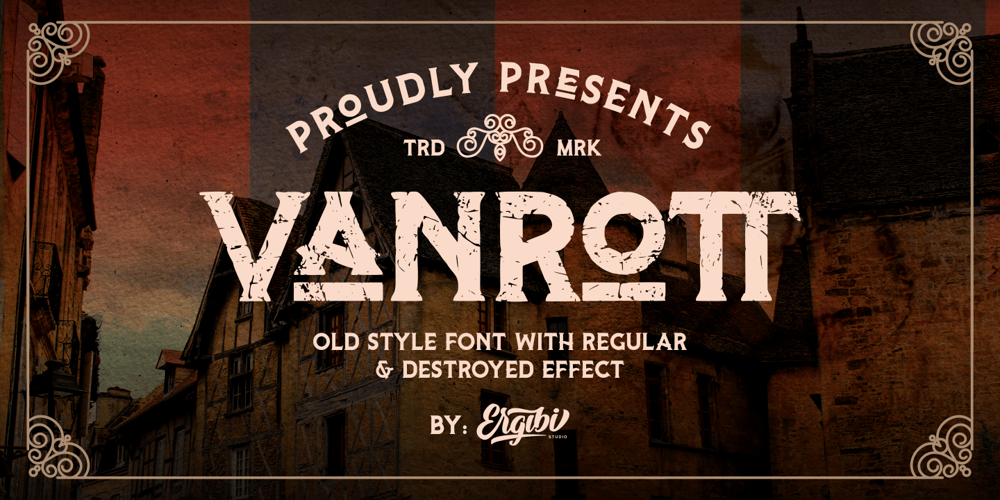
Vanrott
Vanrott font
Vanrott Font Family was designed by Riyadh Rahman and published by Ergibi Studio. Vanrott contains 2 styles and family package options. Vanrott is an old font with two styles: Regular and Destroyed. Both styles have a bold, prominent, old-fashioned but modern look! Vanrott is perfect for those of you who need fonts for titles, logos, clothing, invitations, branding, packaging, advertisements, and more. Vanrott includes uppercase and lowercase letters, punctuation, symbols, numbers, stylistic sets, alternate, ligatures as well as multi-lingual support.